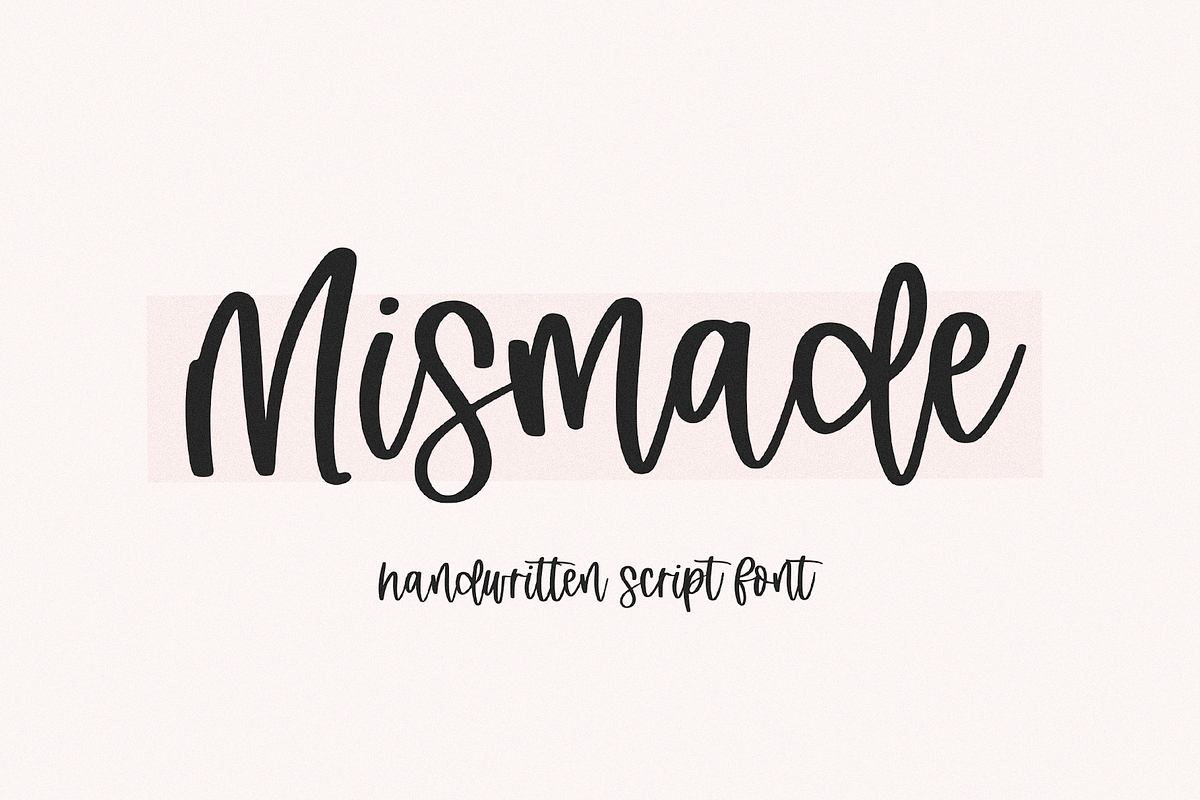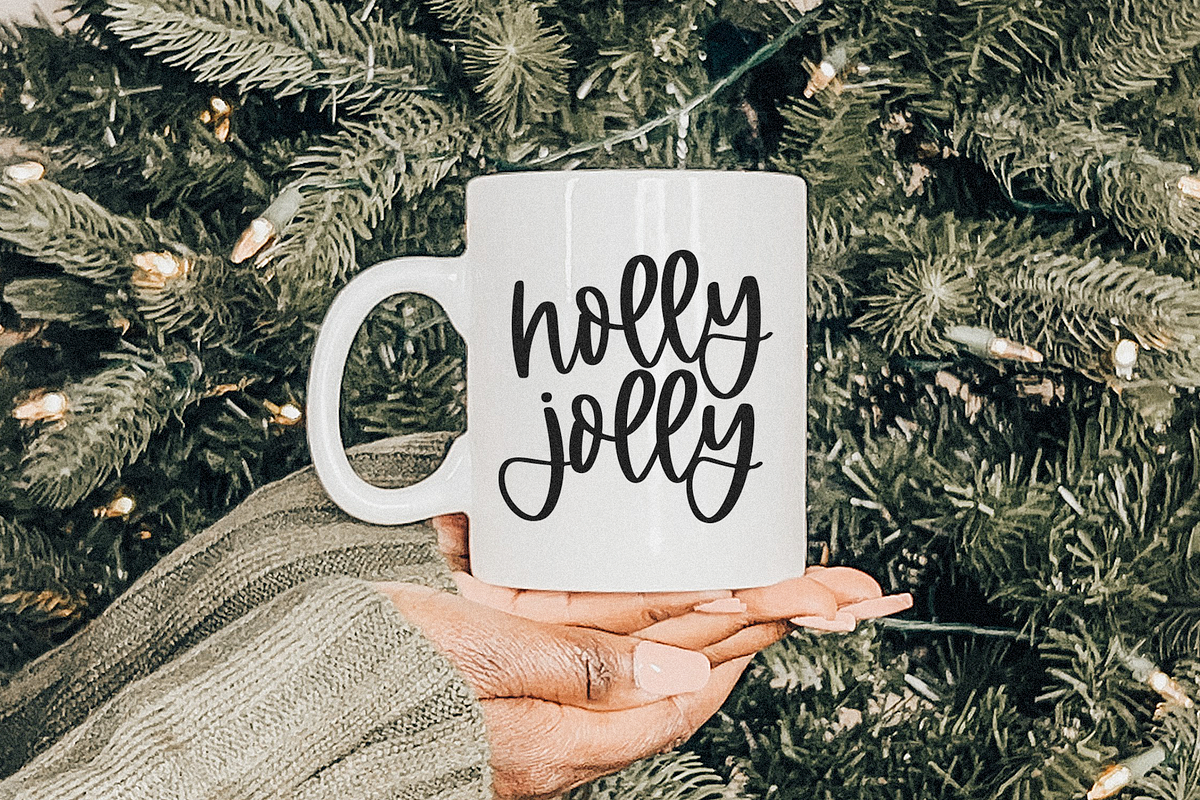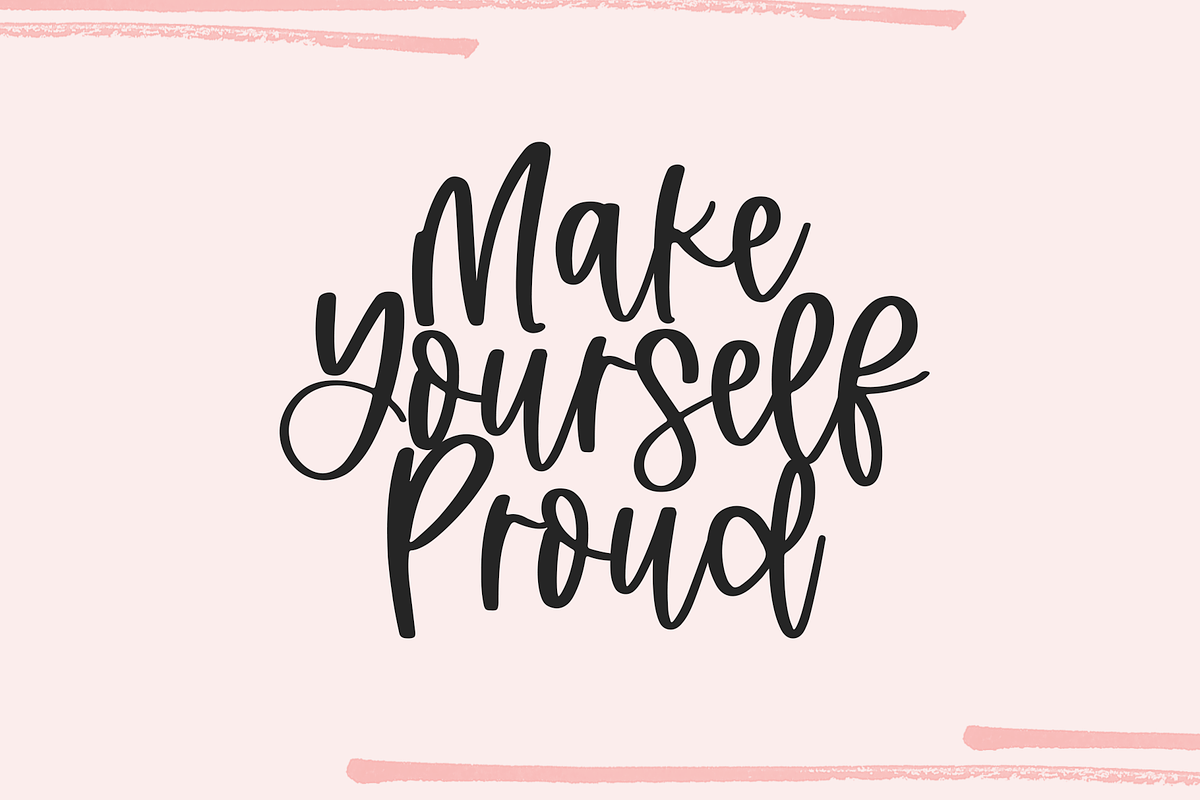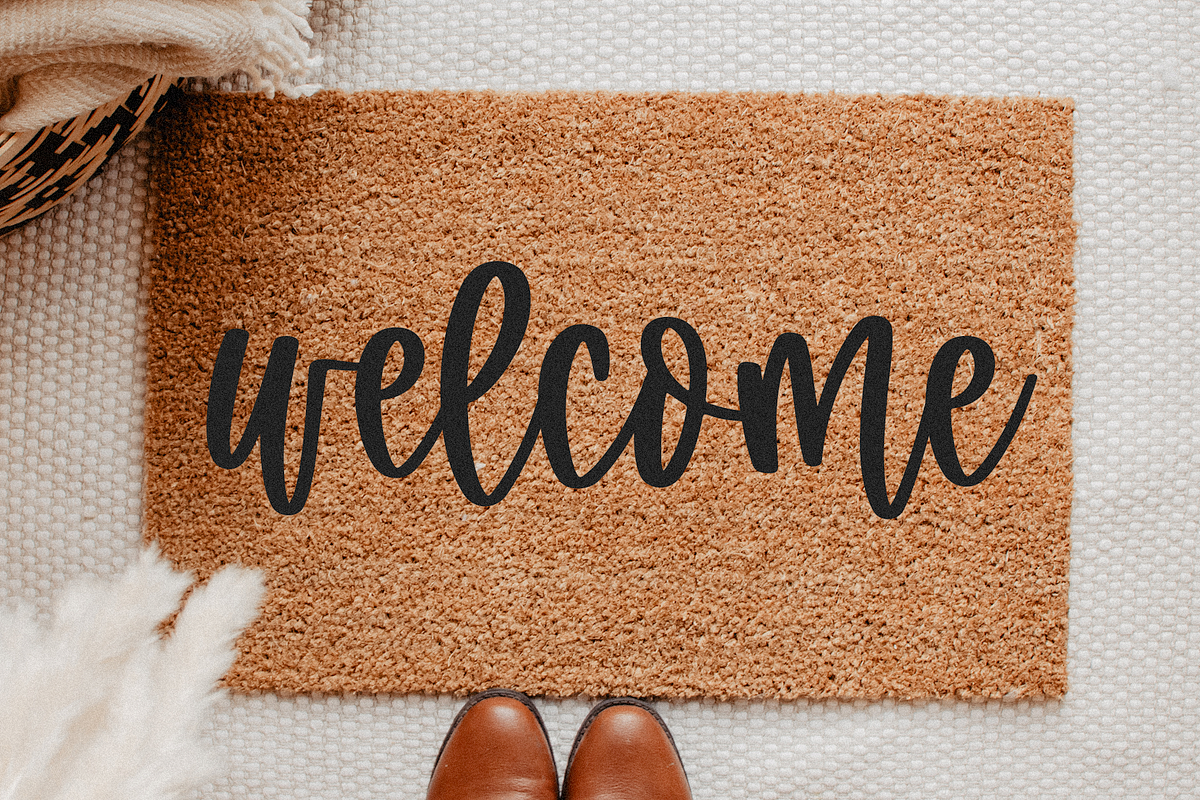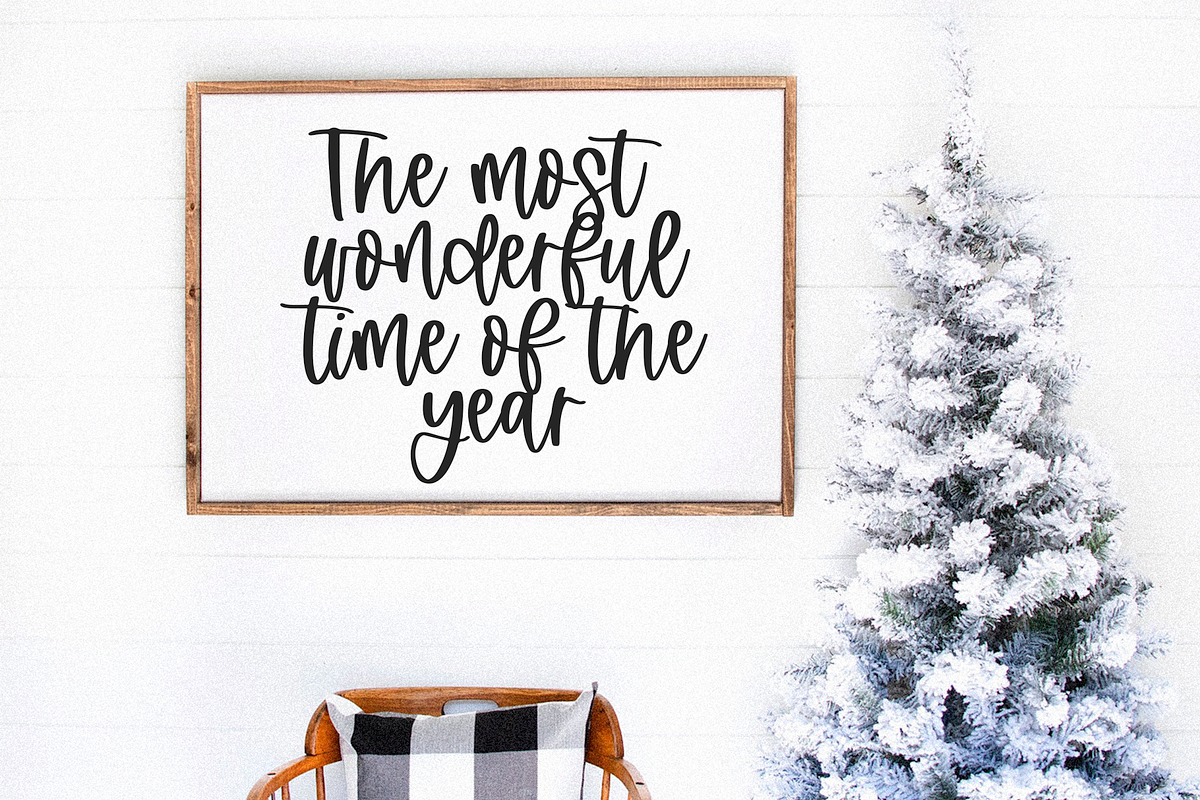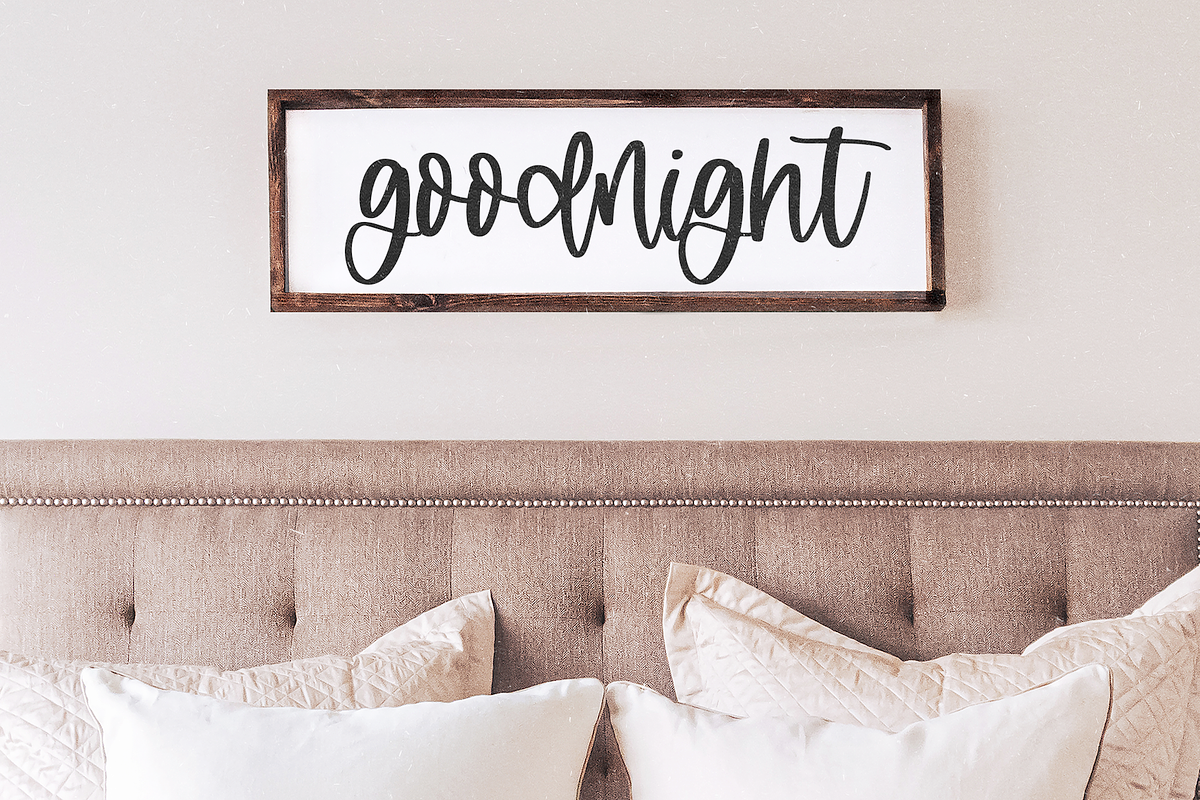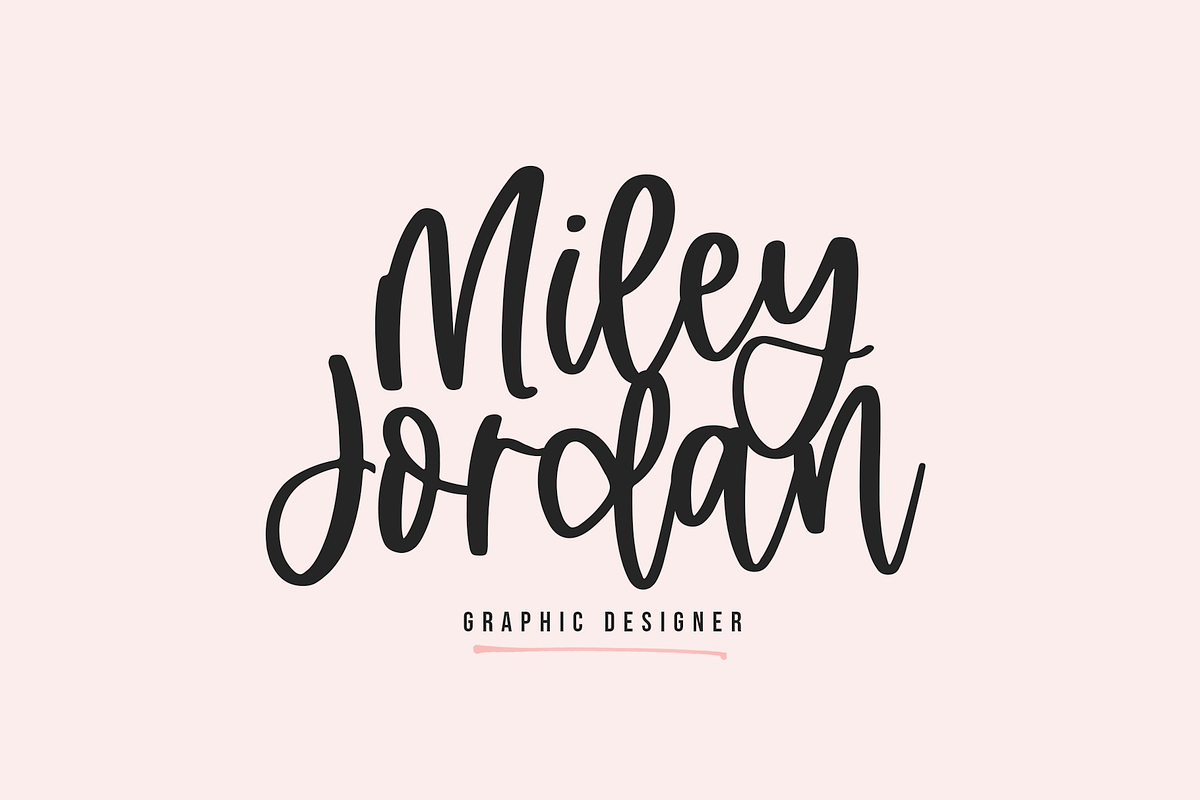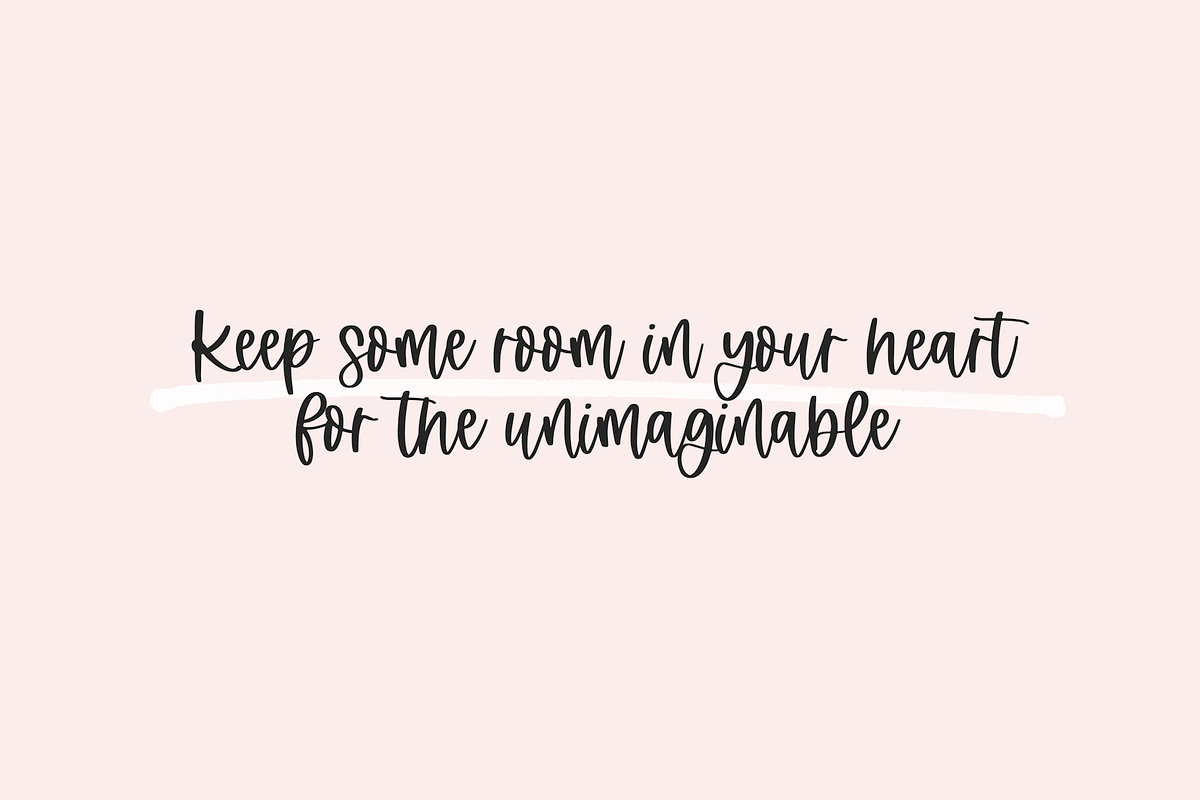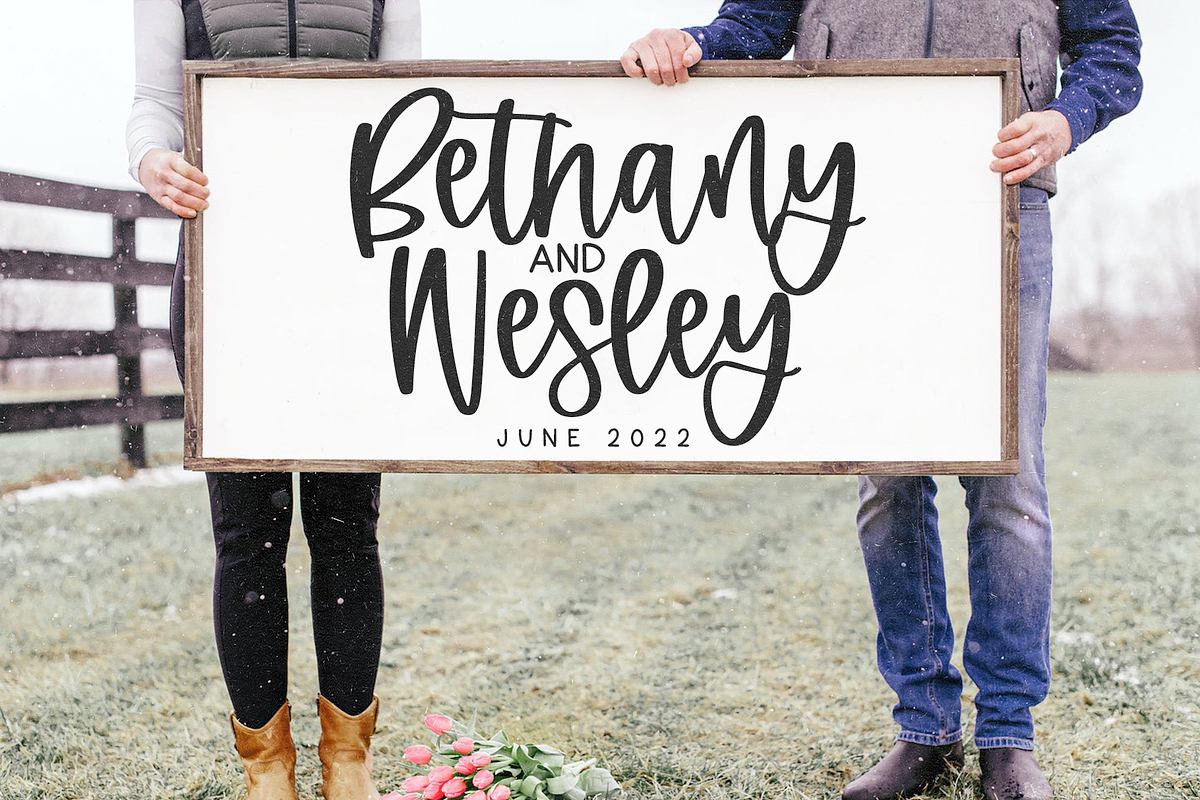
Mismade | Modern Script Font
Mismade is a handwritten font with a modern calligraphy look!
This font is perfect for all of your farmhouse decor, signs, svg files, branding, logos, cricut projects, wedding decor + invitations, social media and more!